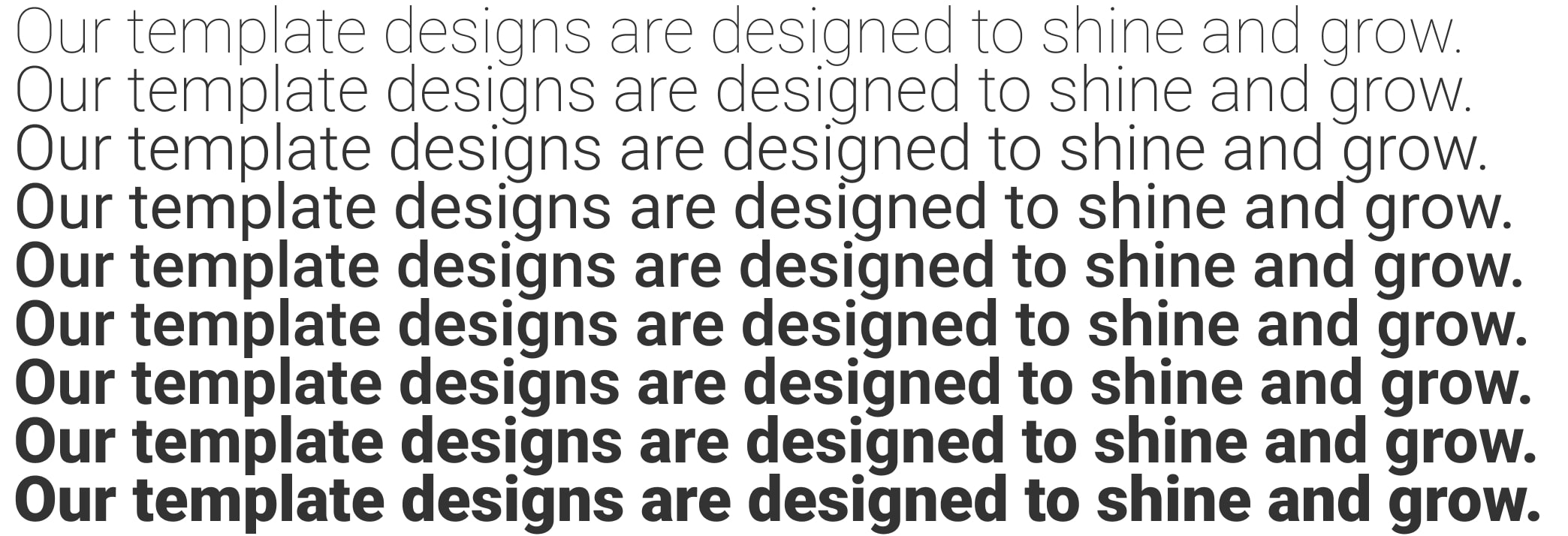
Elegant Fonts for Your Blog: 5 Professional Picks (2026)
Selecting the perfect font for your blog or website is more than just a stylistic choice; it's a critical decision that directly impacts how your content is perceived and consumed by your audience.
Why do Fonts matter?
The importance of choosing the best font for your website cannot be overstated. Web design fonts influence the overall tone and personality of your blog, aligning with its subject matter and audience expectations.
For instance, serif fonts like Georgia or Merriweather often convey a sense of authority and tradition, making them ideal for serious topics or long-form articles, thus serving as good fonts for websites focused on in-depth content.
On the other hand, sans-serif fonts such as Arial font or Verdana font are celebrated for their modern simplicity, enhancing readability on digital screens—a must for websites focusing on contemporary trends or quick consumption, making them among the best fonts for web design.
Moreover, the impact of fonts on readability and user experience is profound. Research indicates that fonts affect how easily visitors absorb information. Finding a balance between aesthetic appeal and practicality is key, ensuring your chosen font is legible across various devices and screen sizes is crucial for retaining readers' attention.
As the saying in web design goes,
Typography speaks louder than words. Your font choice communicates volumes about your blog's professionalism and credibility.
Best fonts for Websites – Top choices for blogs
At our design studio, we've honed our understanding of typography to help bloggers find the perfect balance between style and functionality. Let's delve into three key categories of fonts that can elevate your blog's visual impact:
1. DM Sans
DM Sans is a versatile sans-serif font known for its clean lines and modern appearance, making it an excellent choice for digital readability and aesthetic appeal. It's one of the best fonts for websites that want a sleek, modern look.
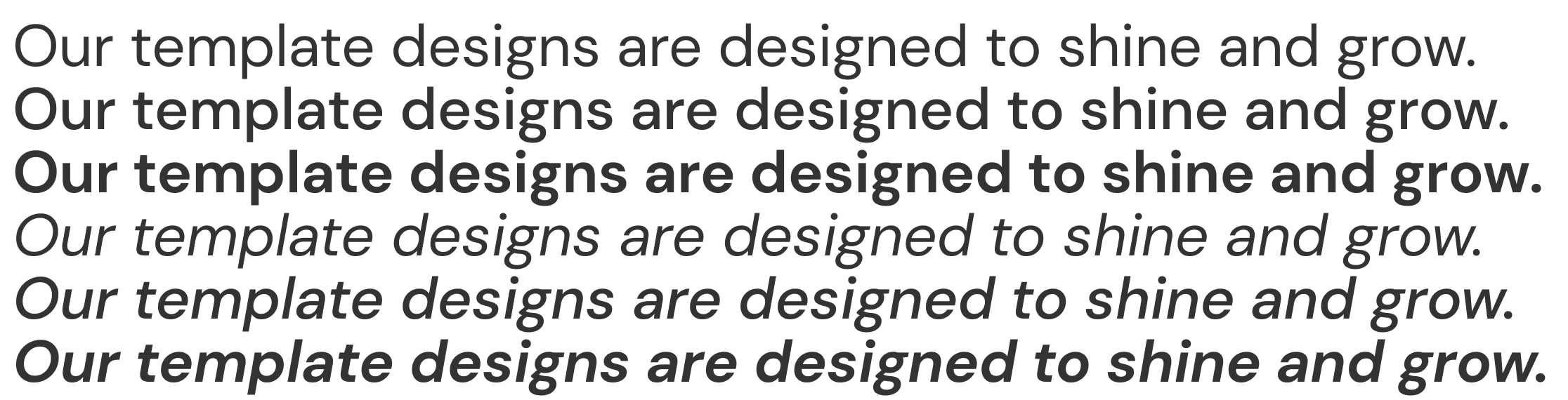
Its balanced letterforms and open, friendly design make it particularly suitable for blogs focused on technology or modern themes. With its versatility and readability, DM Sans ensures your content remains clear and engaging across various screen sizes and devices.
2. Serif Fonts
Serif fonts, with their distinctive tails and strokes, offer a more traditional and authoritative feel. They are often preferred for longer articles or blogs that emphasize credibility and depth, making them some of the best website fonts for professional content.
Here are some recommended serif fonts:
Georgia – Developed for on-screen legibility, Georgia features robust serifs that enhance readability without compromising on elegance, perfect for blogs that value both style and substance.
Merriweather – Designed to be easily readable on screens, Merriweather combines warmth with readability, making it suitable for blogs that want to convey a friendly and approachable tone while maintaining professionalism.
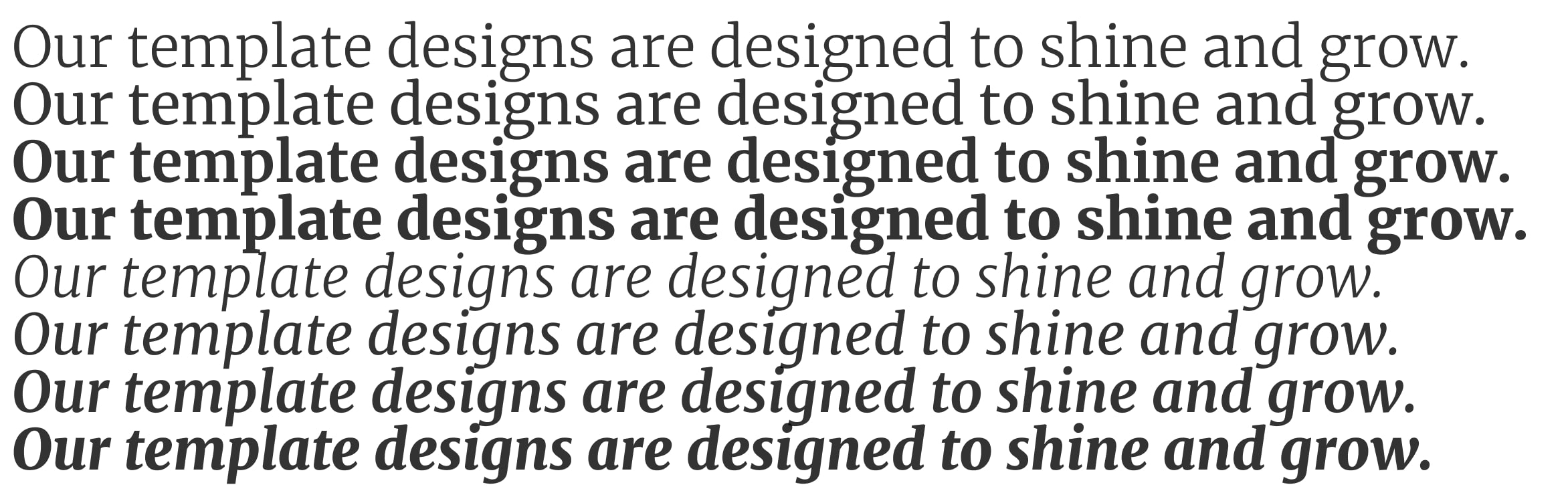
3. Display Fonts
Display fonts are meant to grab attention and add personality to headings, quotes, or other emphasized text on your website. They are essential for creating an elegant and professional appearance, key characteristics of the best fonts for a website.
While they should be used sparingly to maintain readability, they can inject flair and character into your design. Here are some examples:
Lora – A serif font with a touch of elegance, Lora is ideal for adding a refined look to headings or quotes without overwhelming the reader.
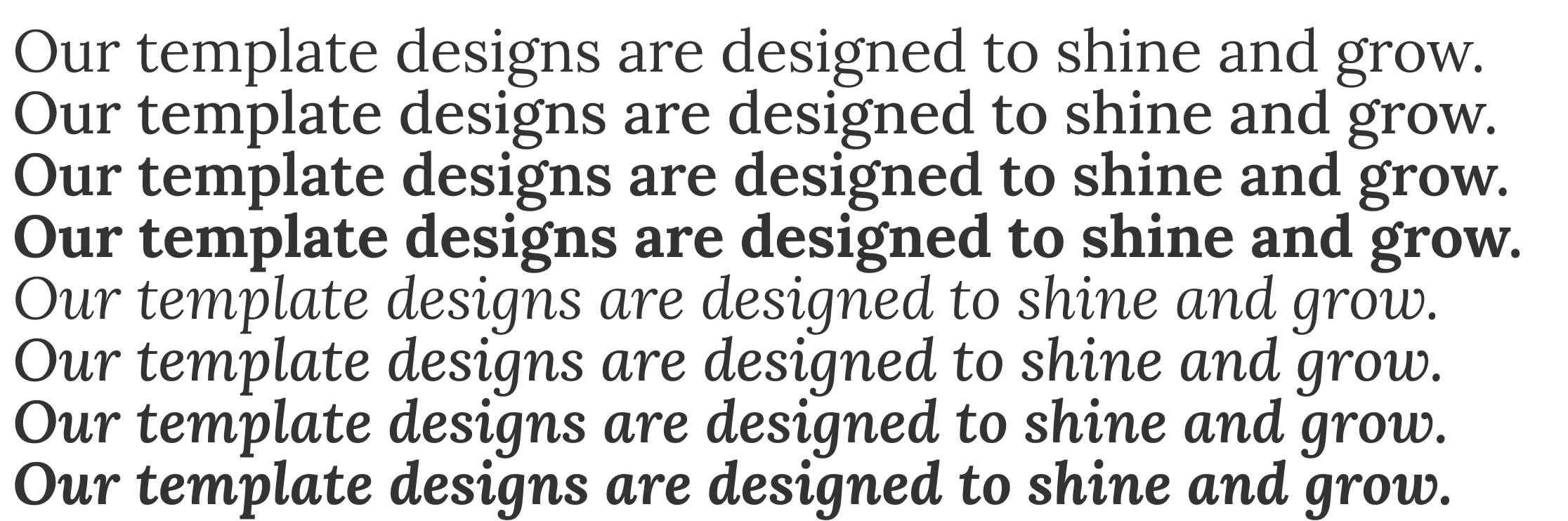
Playfair Display – Known for its high contrast and classic elegance, Playfair Display is perfect for blogs that want to make a bold statement with their headings or featured quotes.
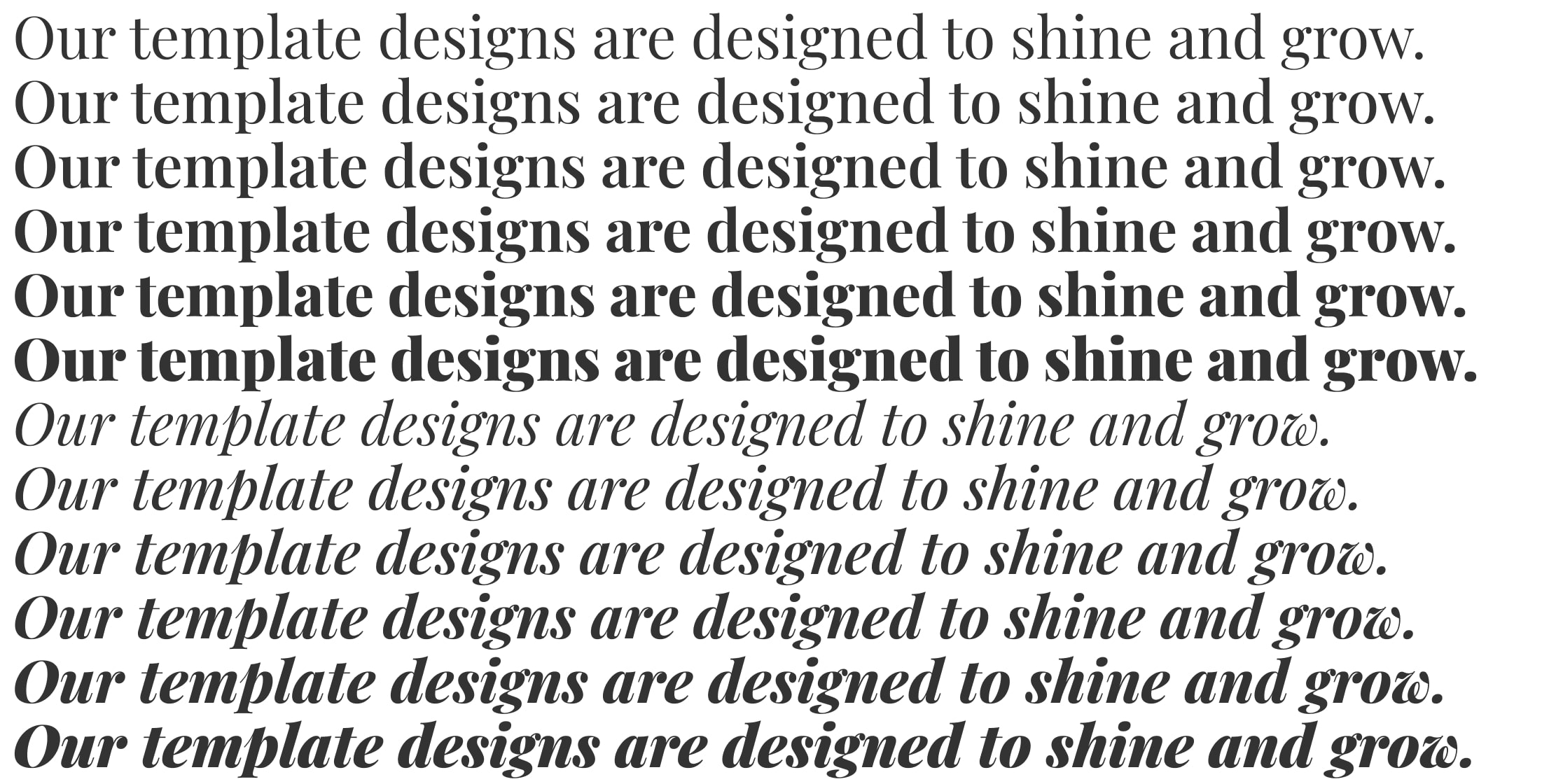
Roboto Slab – A sturdy serif font with a contemporary edge, Roboto Slab balances readability with a modern aesthetic, making it suitable for blogs looking to maintain a clean and professional appearance.
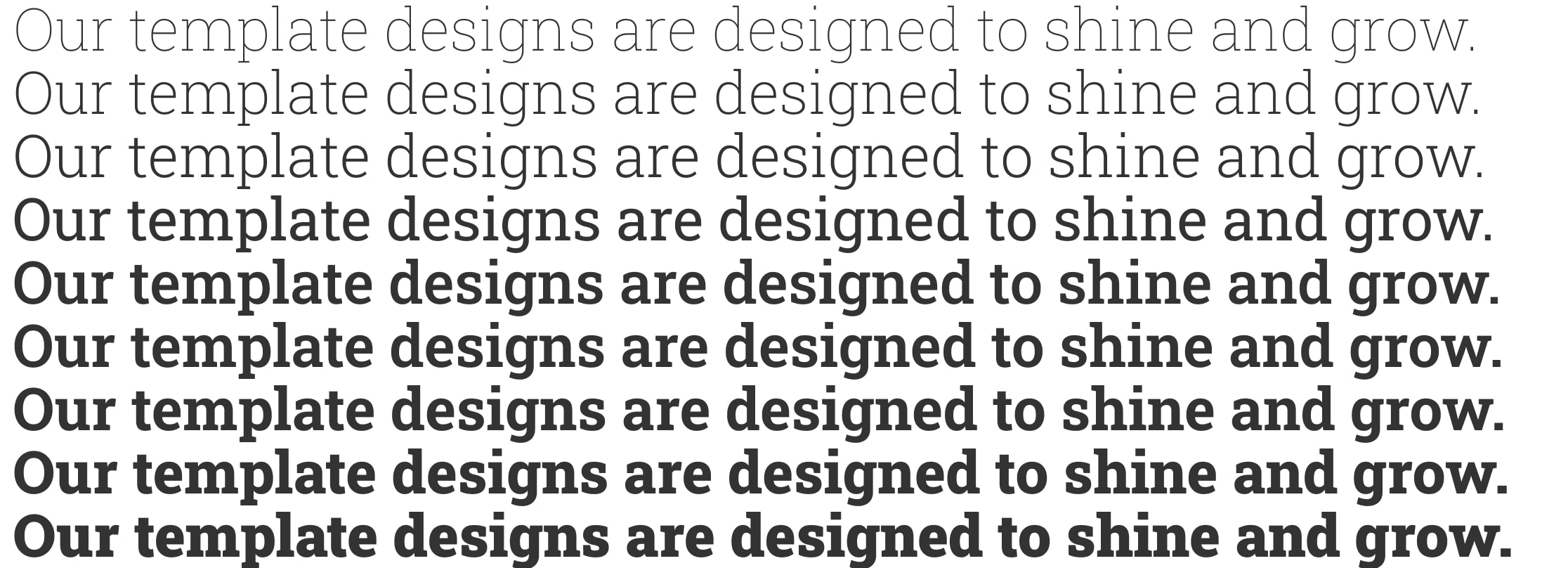
4. Monospaced Fonts
Monospaced fonts, where each character occupies the same width, are ideal for showcasing code snippets or technical content on your blog. They are among the best website fonts for tech-focused content, providing clarity and precision.
SF Mono – Developed by Apple, SF Mono is a modern monospaced font designed for optimal readability on macOS and iOS. It's perfect for blogs focusing on technology, coding tutorials, or any content where precise alignment and clarity are essential.
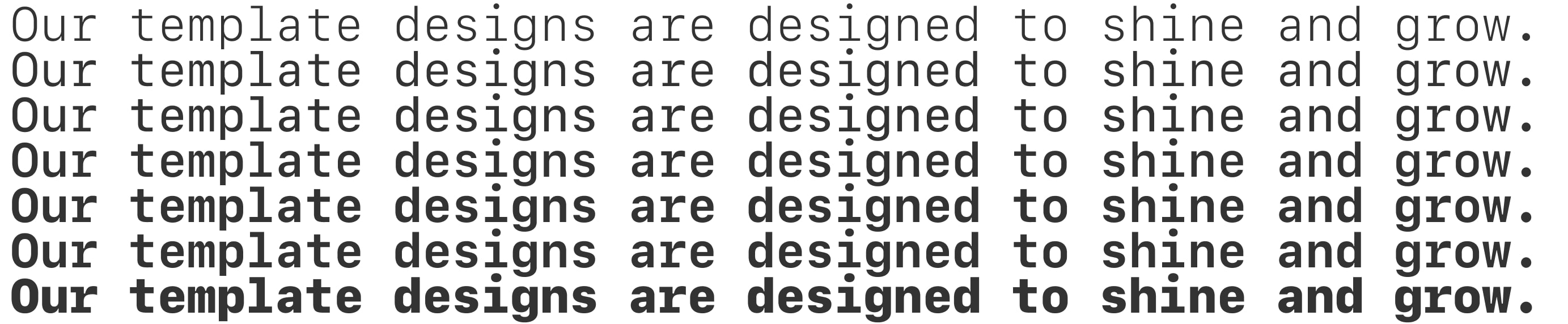
5. Modern Fonts
Modern fonts blend geometric shapes and clean lines, offering a contemporary look that suits minimalist or tech-focused blogs. They are among the best fonts for web design, ensuring a sleek and professional look.
- Optimal font size – Aim for 16px to 18px for body text to accommodate various reading preferences, ensuring the best font for websites is both accessible and reader-friendly.
Whether you're sharing insights, telling stories, or engaging readers with your expertise, the right fonts enhance your message and elevate your blog to new heights. Make your blog font style attractive so it is eye calming to be read by your audience and wanting to come back for more content.